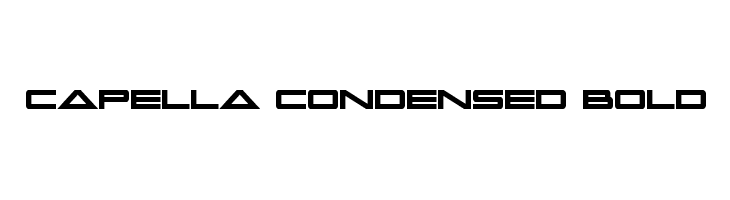
A bold, condensed font with angular, geometric shapes for a modern look.
A bold, condensed font with a strong, geometric style.
A bold, condensed font with a futuristic, geometric design.